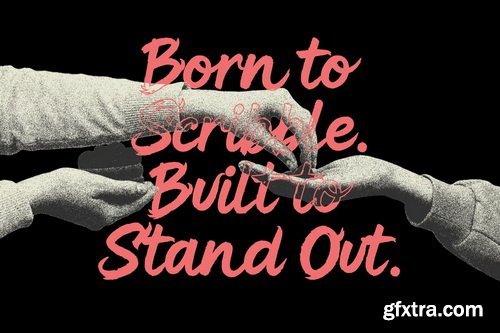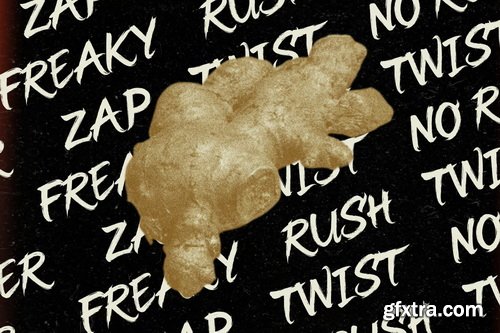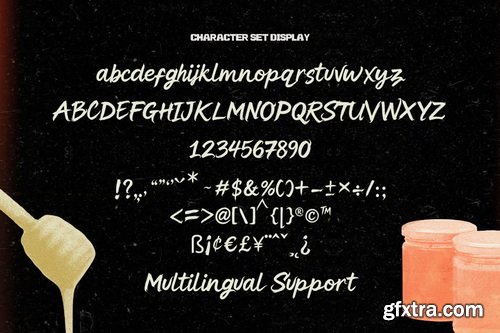
Cheeky Ink A Bold & Playful Dry Brush Font
Unleash your wild side with Cheeky Ink, a bold dry brush font packed with cheeky character, messy strokes, and unapologetic energy. Handwritten with raw emotion and flicks of rebellion, Cheeky Ink is perfect for designs that refuse to whisper—posters, merch, streetwear, album covers, bold branding, or anything that needs to shout louder than the rest. With rough textures, dynamic ligatures, and swash alternates, every word you type feels spontaneous and alive—like it was just thrown onto the wall with a brush and a grin.